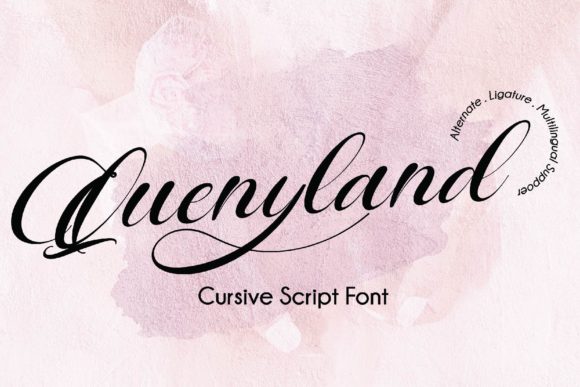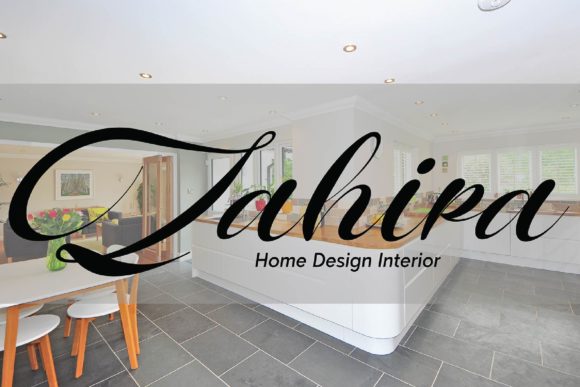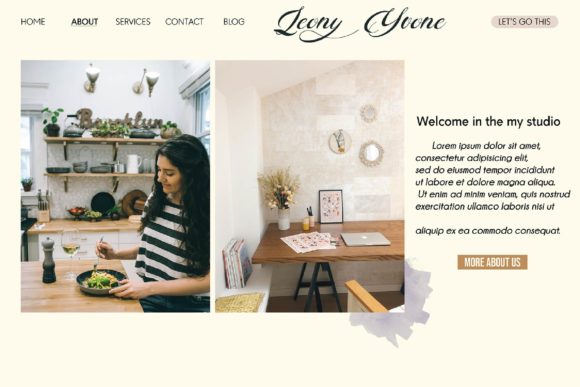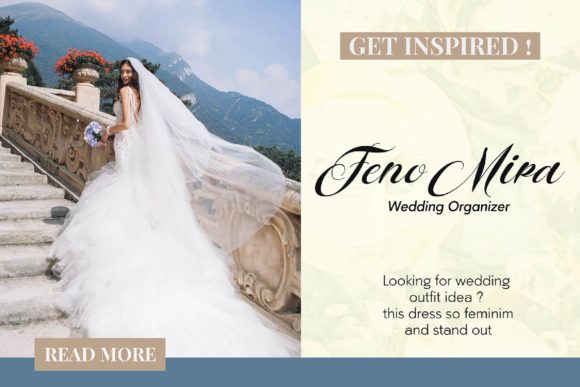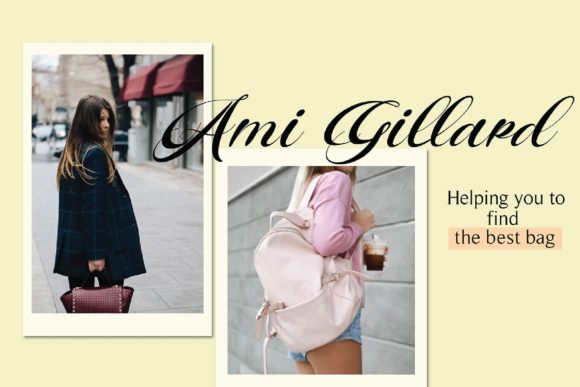
HomeScript FontsQuenyland Font Script Fonts Quenyland Font FacebookXPinterestWhatsApp Quenyland Font Poster 2 Quenyland Font Poster 3 Quenyland Font Poster 4 Quenyland Font Poster 5 About Quenyland Font Updating classic calligraphy with a contemporary feel, Quenyland is a sweet and charming script. DOWNLOAD ON CREATIVE FABRICAThis font is sold and delivered by Creative Fabrica. Font Canyon may earn a commission if you buy through this link. People also explored Just Be Honest Font Butterfly Font Abrakadabra Font Sittella Font Manchester Park Font Murisa Valeria Font Breadcrumbs Bellzy Font Portal 581 0 TagsQuenyland Font Previous articleAloha FontNext articleEmargo Font LEAVE A REPLY Cancel reply Comment: Please enter your comment! Name:* Please enter your name here Email:* You have entered an incorrect email address! Please enter your email address here Website: Save my name, email, and website in this browser for the next time I comment. Personal Use Free Kanza Personal Use Free Read more about this font Nulshock Bold Personal Use Free Read more about this font Makcex Personal Use Free Read more about this font Jelly Fish Personal Use Free Read more about this font BLOG Where to Buy American Fonts Online in 2024 Where to Buy American Fonts Online: The Ultimate Guide for 2024 Looking for the perfect American font to elevate your design projects? You're in the... Transform Your Website: Elevate Your Typography with 7 Best Web Font Generators Best Fonts for T-Shirt Design – Top 2025 Picks Elegant Wedding Invitation Fonts – Handwritten & Script Fonts